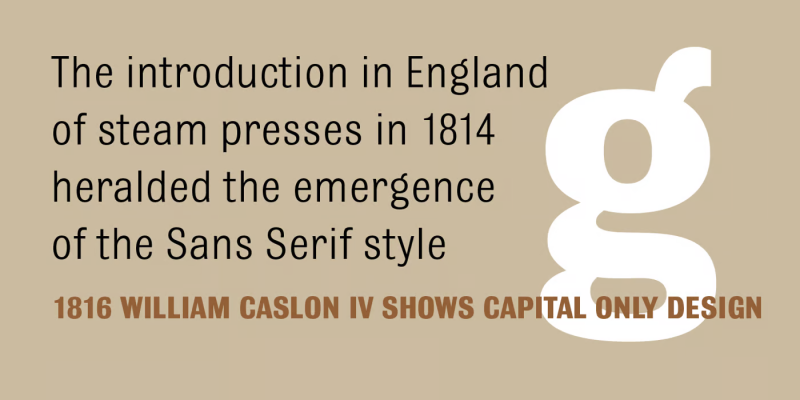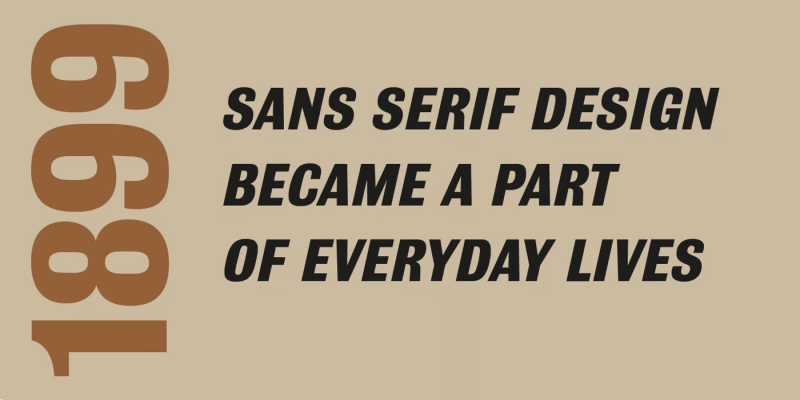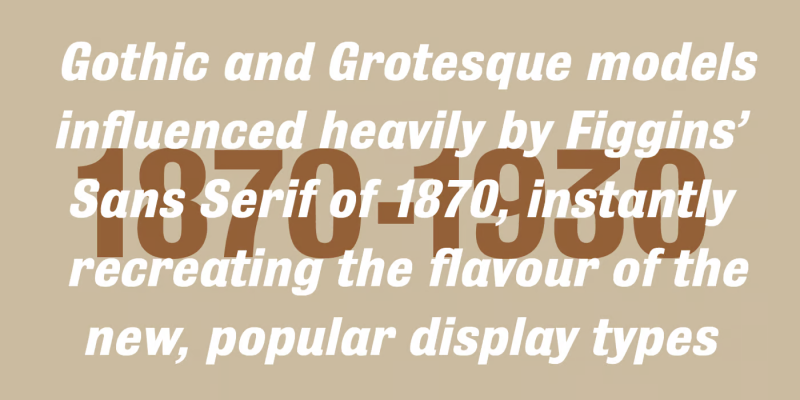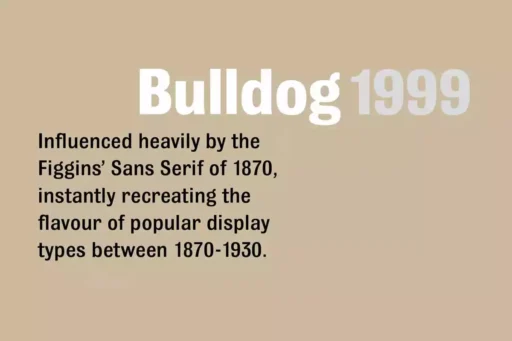
Bulldog Font
Bulldog is a sans serif font family by Adrian Williams. This font family consists of 13 different font styles. The styles come with various weights and italic features.…
Bulldog is a sans serif font family by Adrian Williams. This font family consists of 13 different font styles. The styles come with various weights and italic features. Adrian began his work in 1969, when he worked on converting the off-set designs to digital typography. Club Type, a type foundry, launched this font in collaboration with Adrian.
This font is suitable for different designs such as logos, posters and banners. It is also an ideal choice for print and web designs.
Where Bulldog Font works best
Bulldog Font stays legible at small sizes, which makes it a strong choice for navigation, buttons and dashboards in web design and app interfaces.
Clean sans serifs like Bulldog Font are the default language of SaaS, fintech and product branding.
What is Bulldog Font good for?